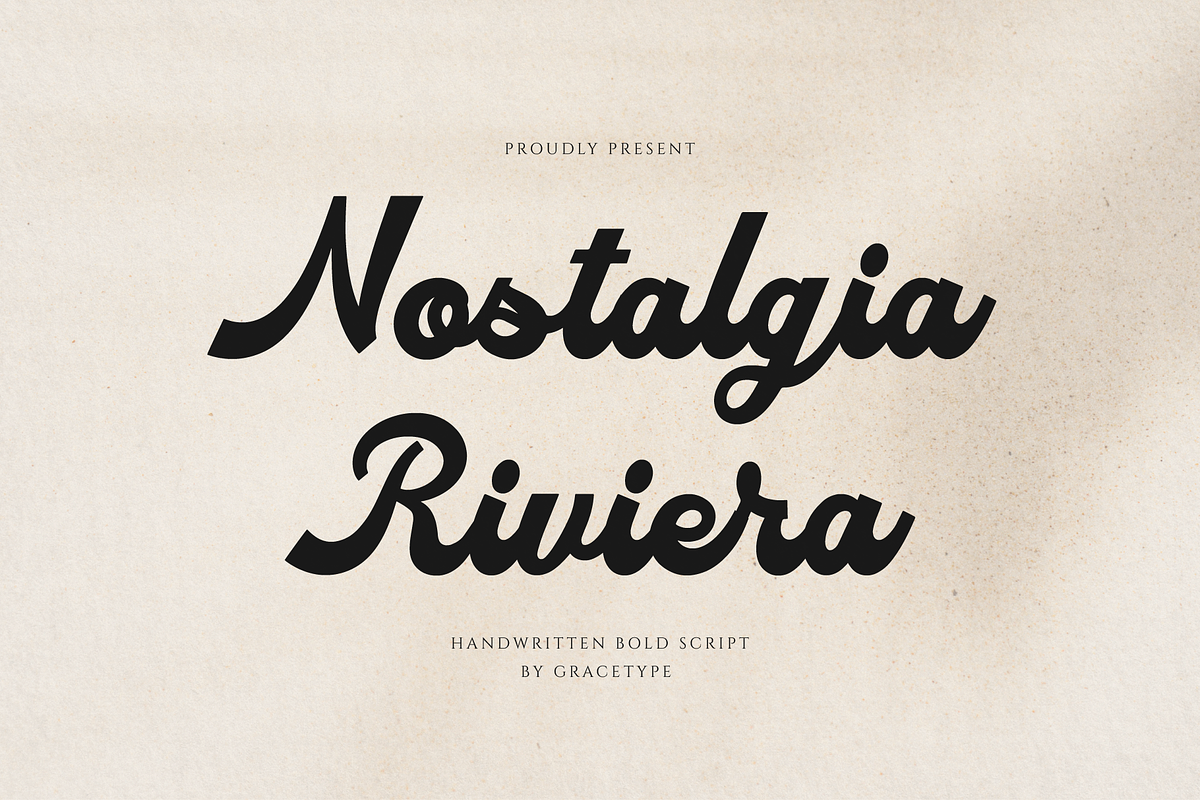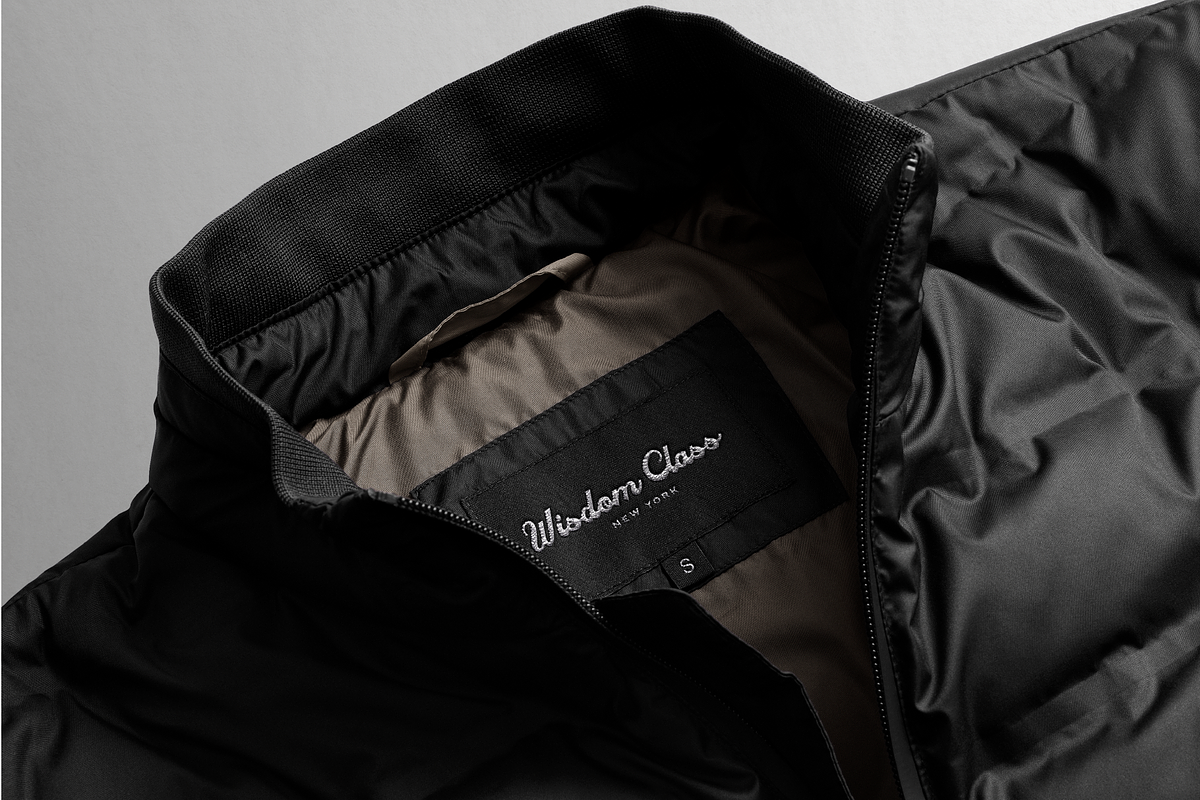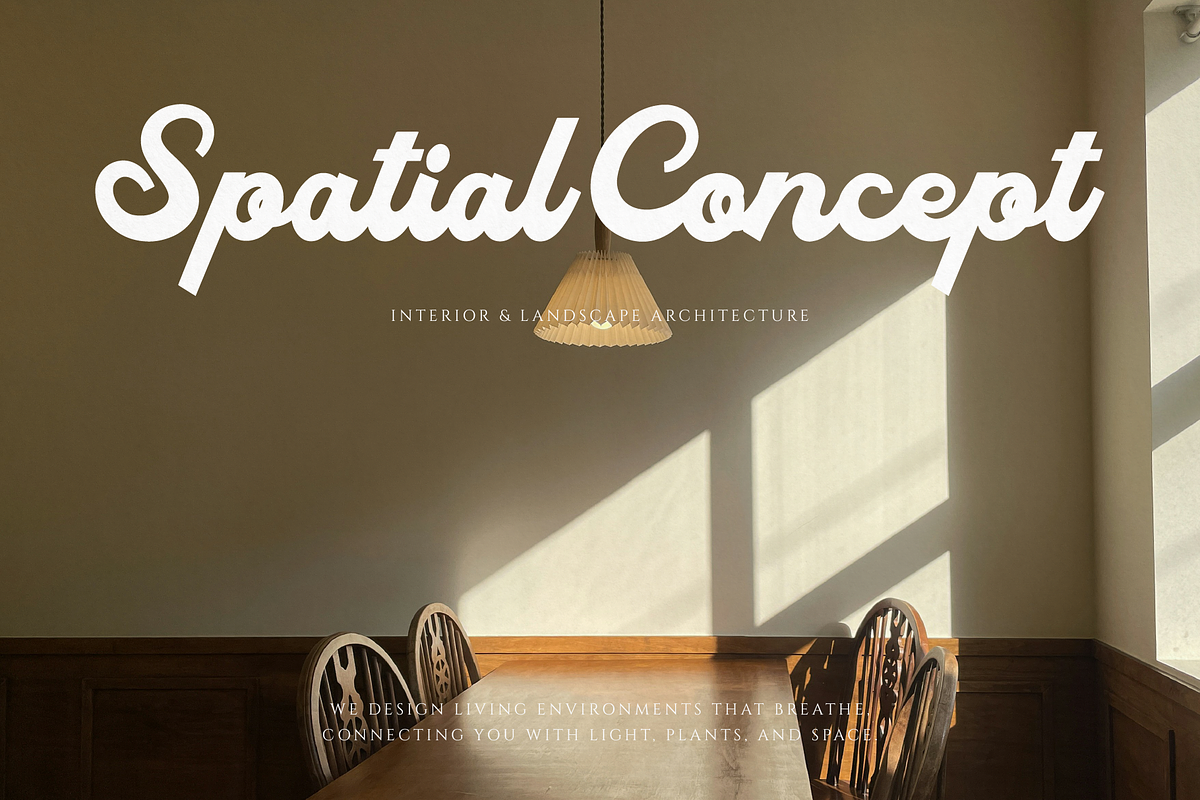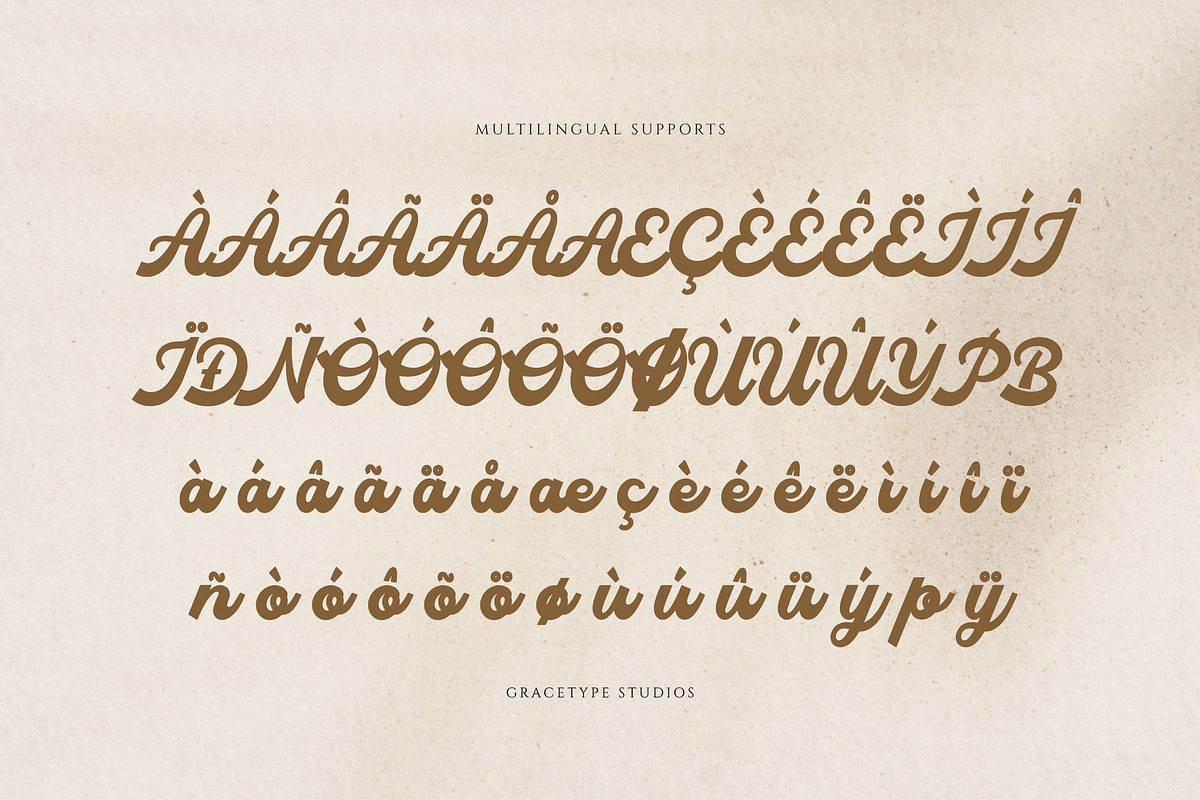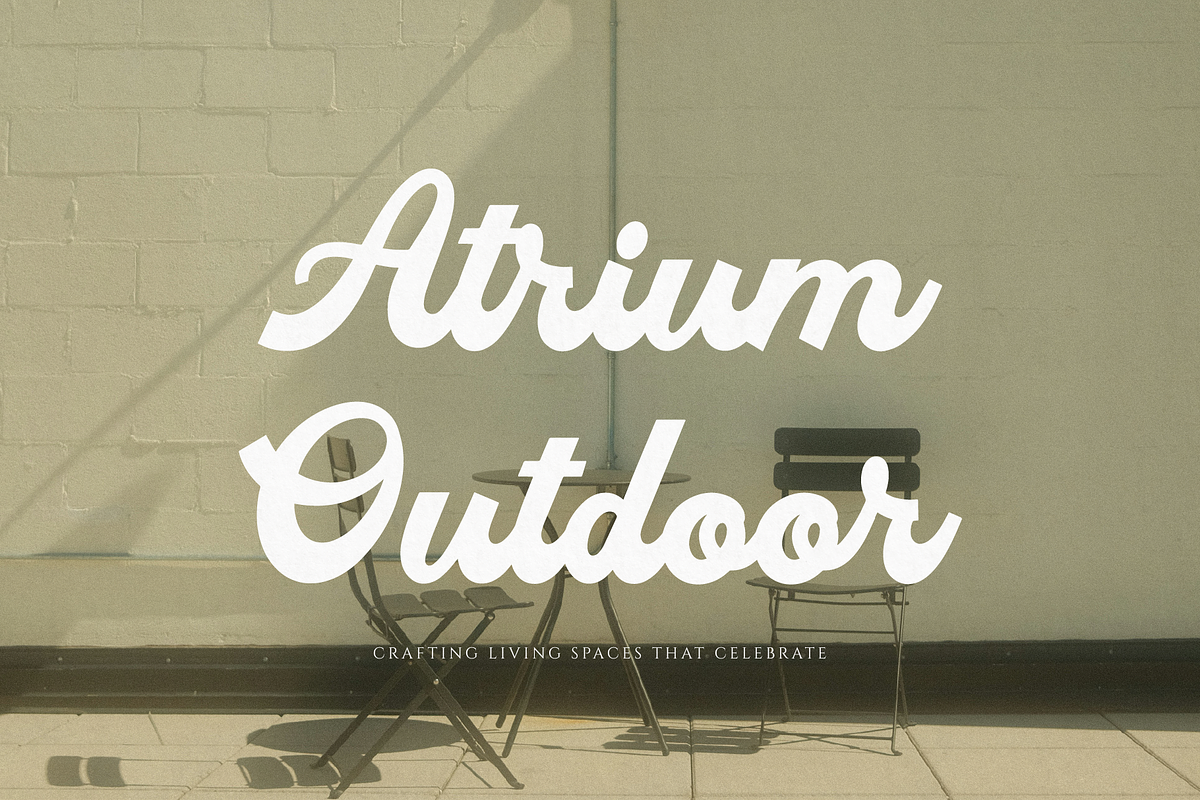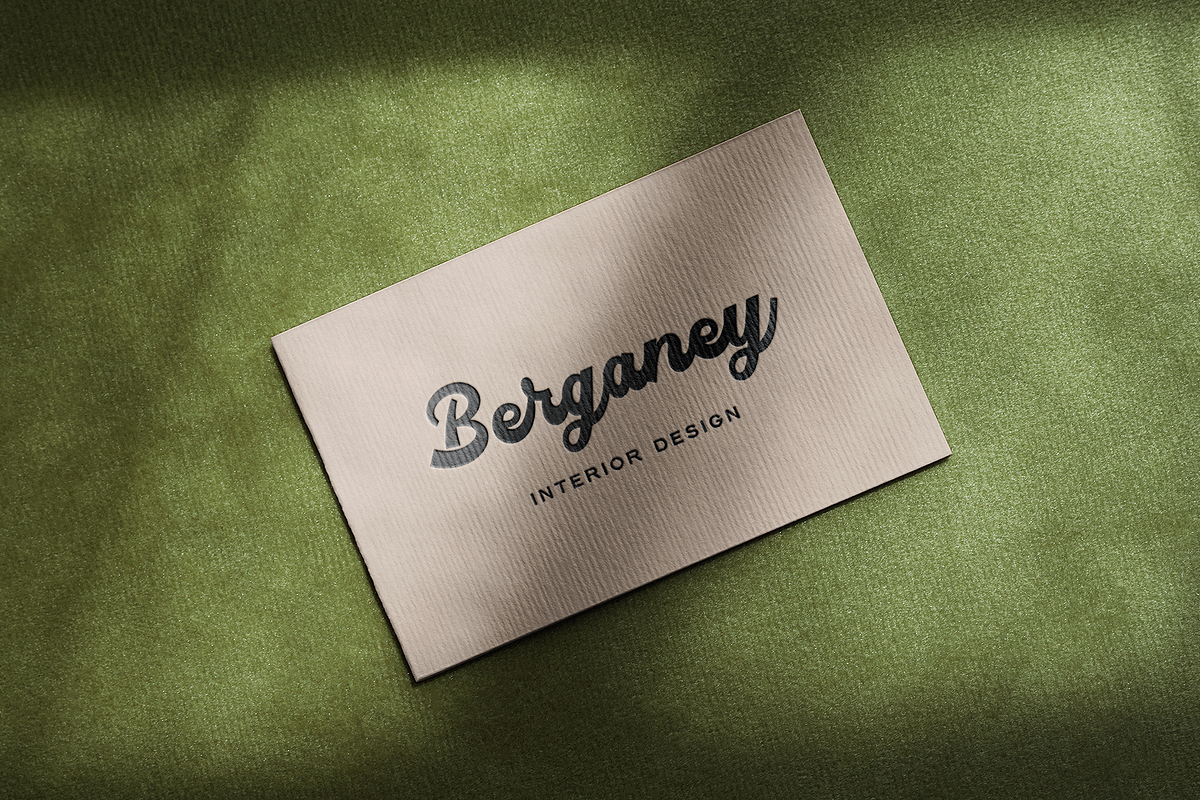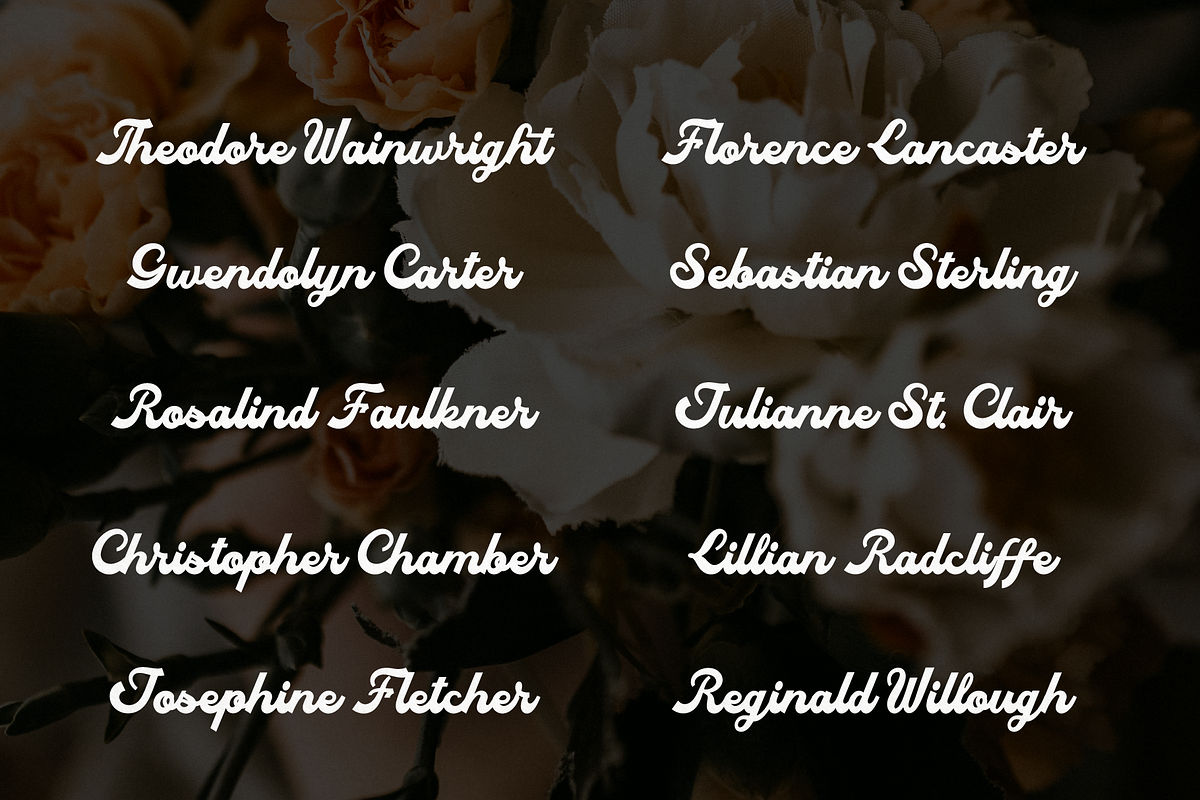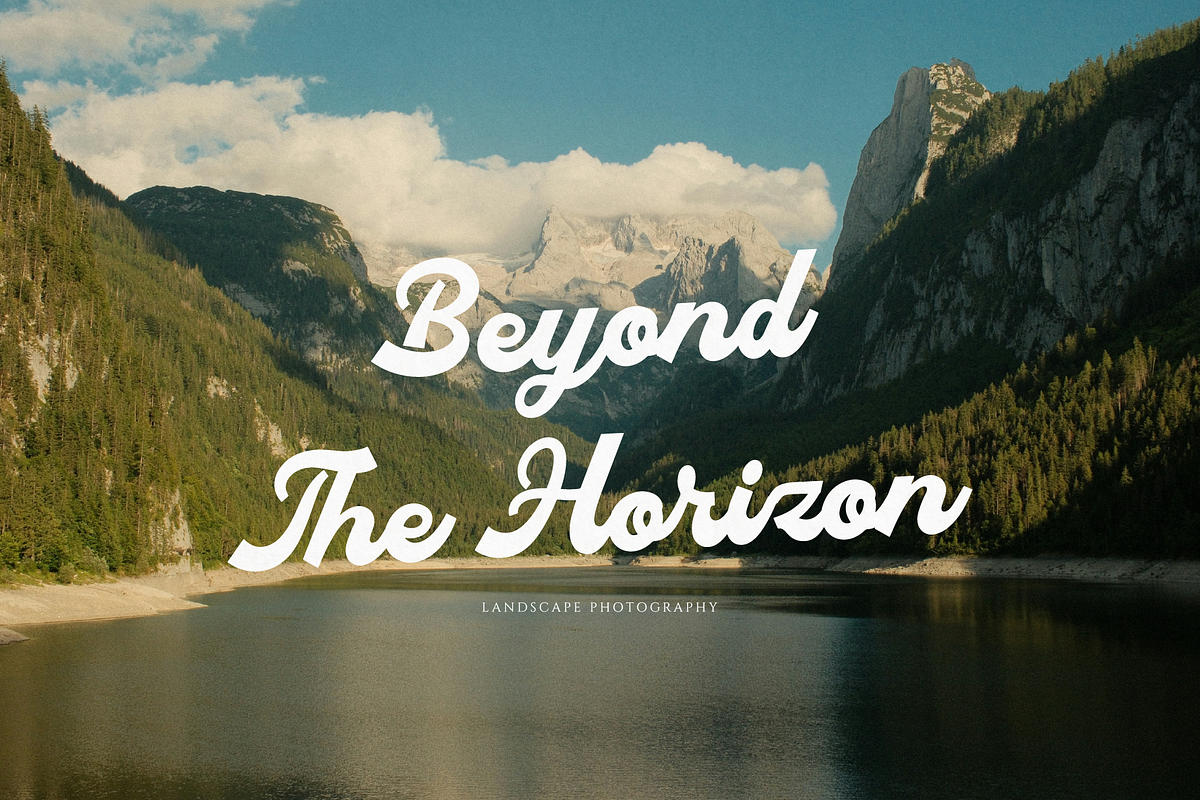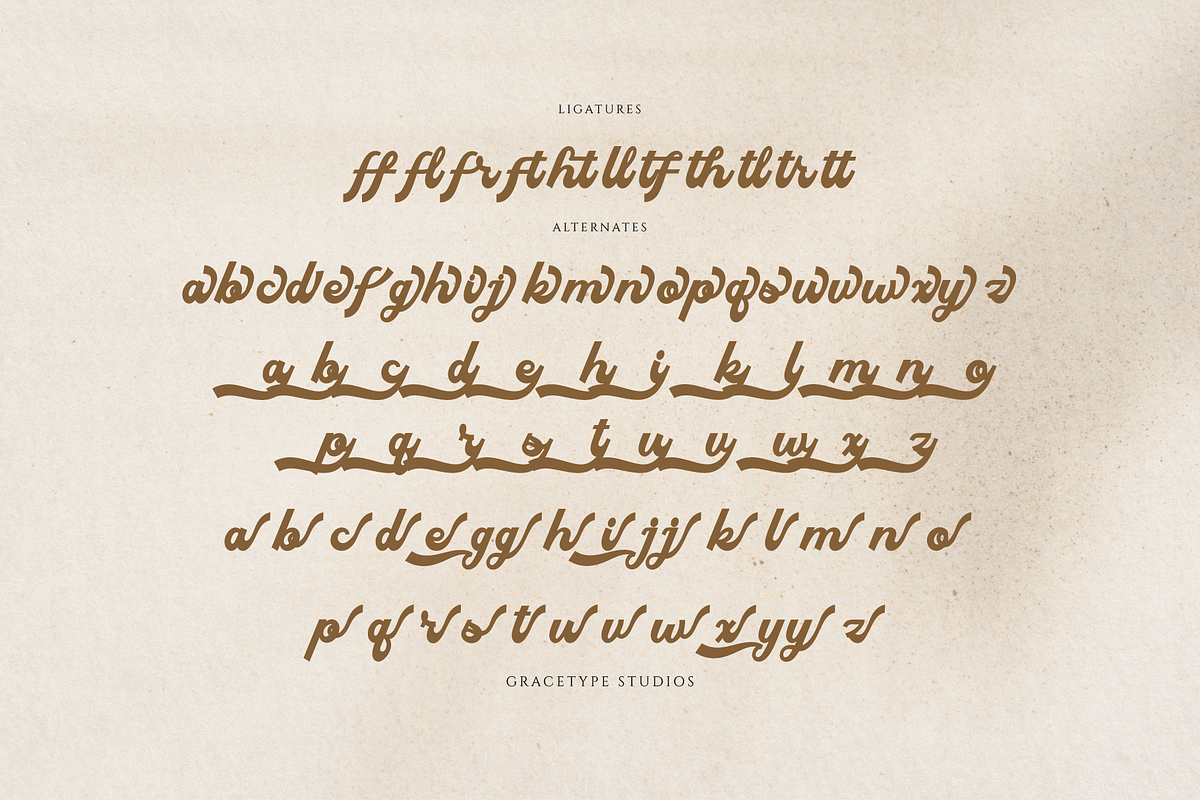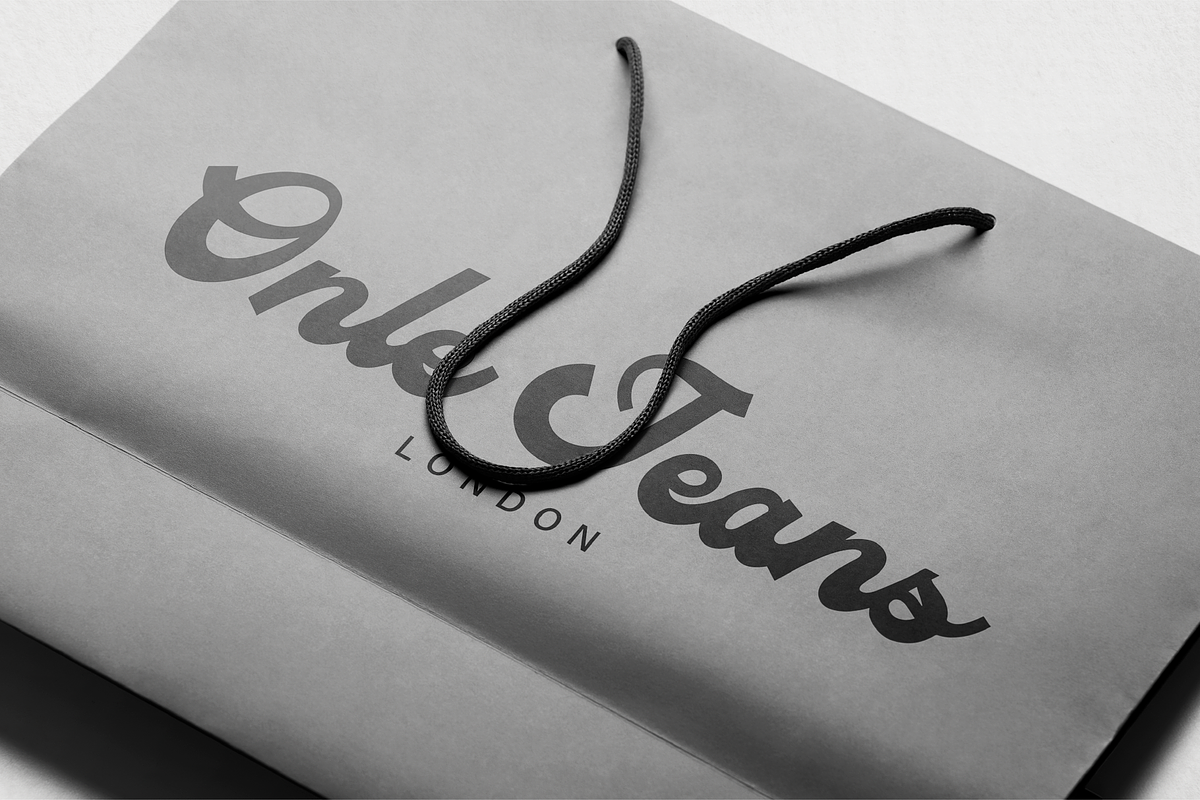
Nostalgia Riviera Handwritten Script
Nostalgia Riviera | Handwritten Bold Script, from Gracetypestudio, suitable for any projects such as: logos, branding projects, homeware designs, product packaging, mugs, quotes, posters, shopping bags, t-shirts, book covers, name card, invitation cards, greeting cards, label, photography, watermark, special events, and all your other lovely projects that need a Script taste.
Alternate and Ligature
Fonts include multilingual support